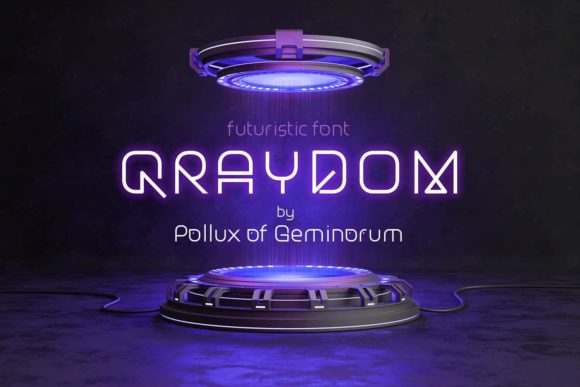
Unleash your creativity with Qraydom – the font of the future!
Introducing Qraydom, a futuristic display font that will elevate your designs to new heights. Crafted by the skilled hands of Pollux of Geminorum, this masterpiece is tailored to ignite your vision and propel your projects into the realm of the extraordinary. Whether you're a seasoned designer or just starting your journey, Qraydom is your passport to a world of boundless possibilities.
With its sharp angles, dynamic curves, and a hint of cyberpunk allure, Qraydom effortlessly evokes the spirit of modernity and innovation. Let its radiance illuminate your posters, magazines, and banners, captivating your audience with its techno-chic flair. Dive into the world of gaming and esports, where Qraydom reigns supreme, infusing your content with an electrifying energy that will leave a lasting impression.
But Qraydom is more than just a font; it's an expression of your individuality. Its versatility knows no bounds, seamlessly adapting to a myriad of creative endeavors. Whether you seek to craft eye-catching logos, engage your followers on social media, or produce captivating video promotions, Qraydom will effortlessly elevate your creations, transforming them into masterpieces that speak volumes.
Don't settle for ordinary fonts. Embrace the future with Qraydom. Its modern aesthetic and captivating presence will ignite your imagination, empowering you to create designs that stand apart from the crowd. Experience the brilliance of Qraydom today and witness the transformative power of a font that embodies the spirit of the future.